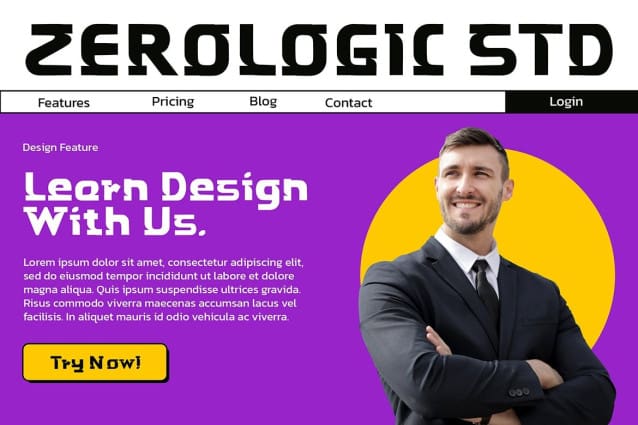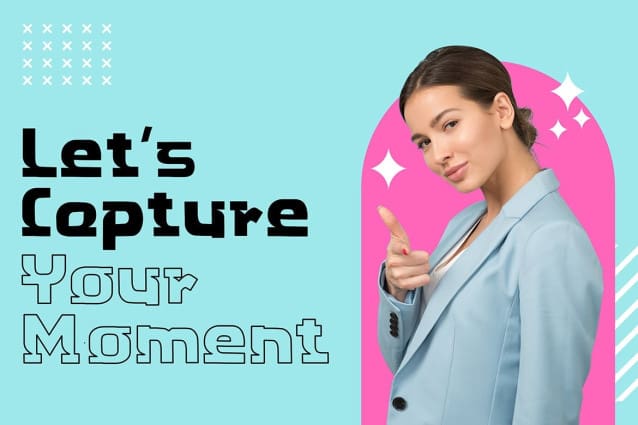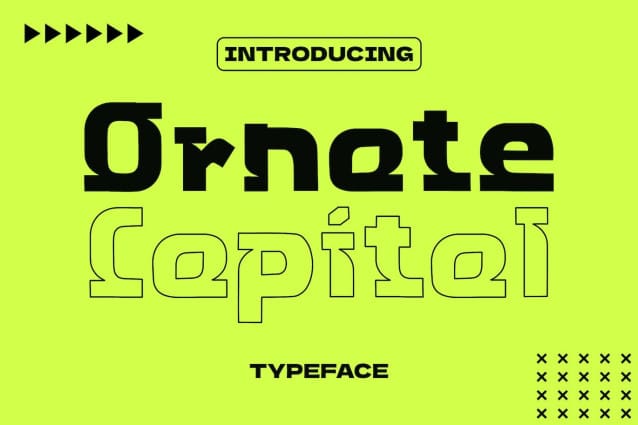
Ornate Capital Font
Ornate Capital Font, it is very suitable for use in your professional presentations such as blog design, modern design, web design, invitation cards, etc. Please download it and enjoy!